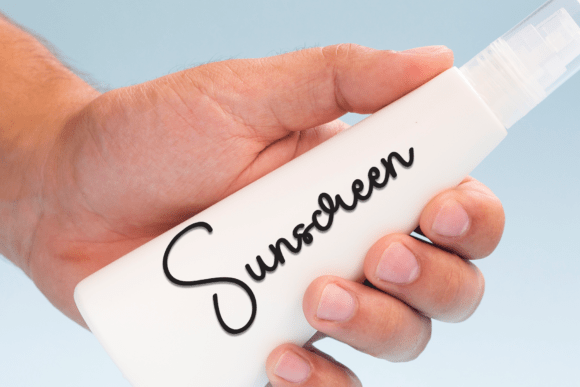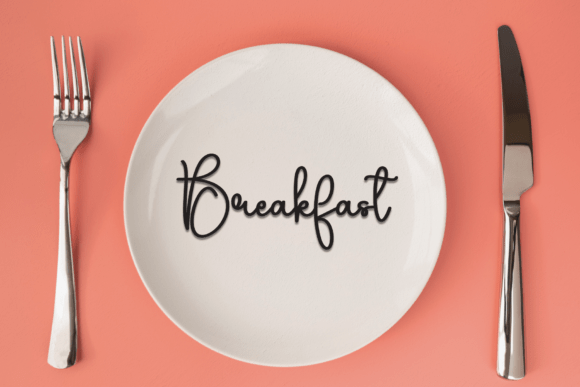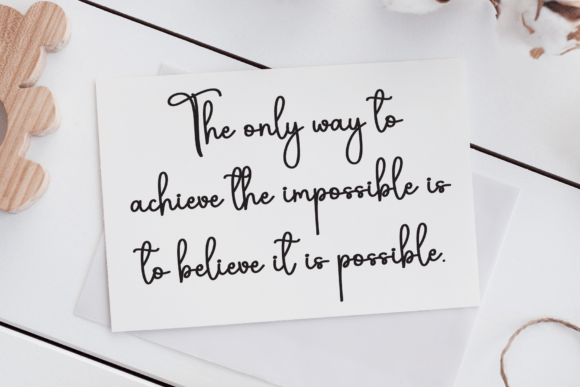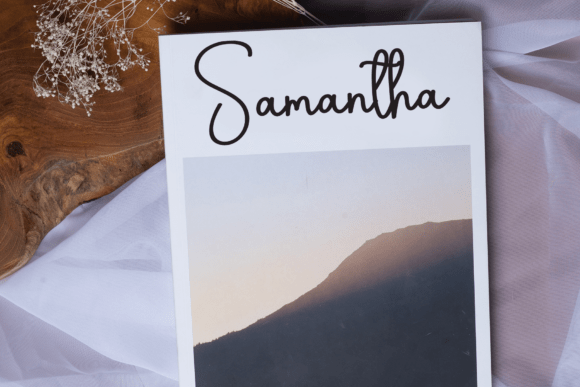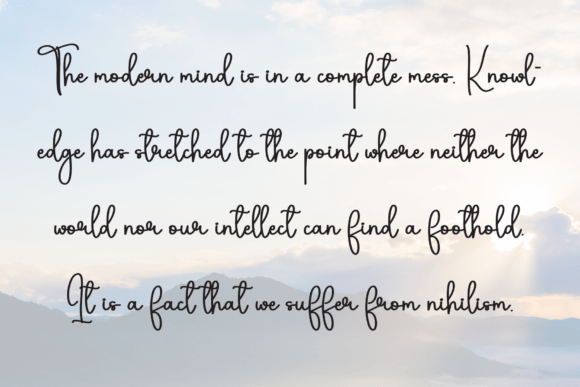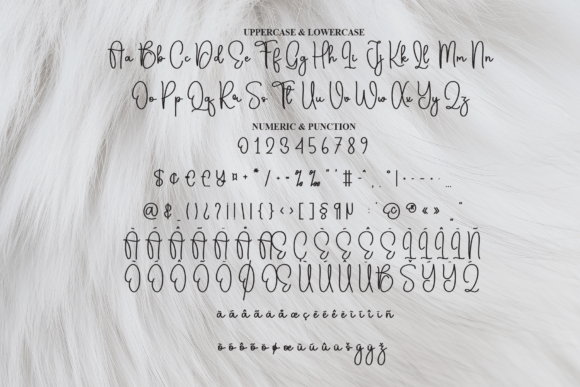
The Bulky Font: Elevating Designs with Elegance and Sophistication
I’ll never forget the moment I stumbled upon the Bulky font. I was working on a project for a luxury brand, tasked with creating an invitation for their exclusive event. The client wanted something that exuded elegance and sophistication, but I was struggling to find the right font. That’s when I discovered Bulky, and it instantly became my go-to choice. With its stylish script and contemporary charm, it perfectly captured the essence of the brand.
A Closer Look: What I Love About Bulky
Bulky is more than just a font – it’s a design statement. Here are some things that I love about it:
- ✨ Elegant and refined letterforms that add a touch of sophistication to any design
- ✅ Fluid curves and carefully crafted strokes that give it a natural, hand-drawn feel
- 💫 Versatile and adaptable, making it perfect for a wide range of design projects
- 🔥 Great for logos, invitations, packaging, and social media graphics
The Not-So-Perfect: A Few Quirks and Limitations
While Bulky is an amazing font, it’s not without its quirks. Here are a few things to keep in mind:
- 🤔 Some users may find the font a bit too ornate for certain design projects
- ⚠️ Limited use of uppercase letters, which can make it less suitable for certain applications
- 📊 Not ideal for body text or long-form content, as it can be a bit too decorative
The Story Behind Bulky: Designer Inspiration
Bulky was designed by a team of typographers who wanted to create a font that combined the elegance of traditional calligraphy with the modernity of digital design. Inspired by the flowing curves of handwritten scripts, they crafted a font that’s both refined and sophisticated.
| Font Name | Bulky Font |
| What is the best use for Bulky font? | Bulky is ideal for logos, invitations, packaging, and social media graphics that require a touch of elegance and sophistication. |
| Does Bulky support OpenType features? | Yes, Bulky supports OpenType features, including glyphs and stylistic alternates, which can be accessed in compatible design software. |